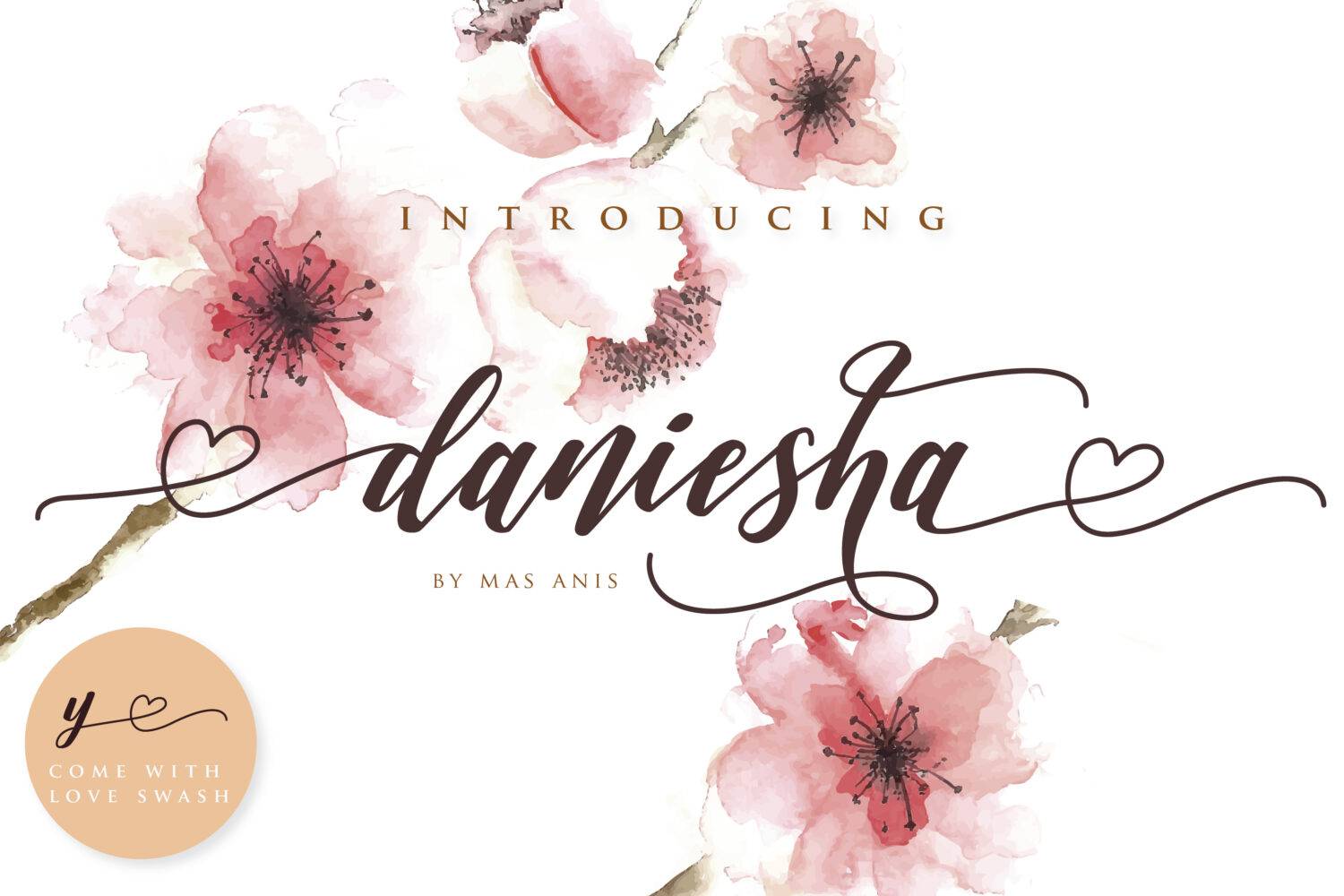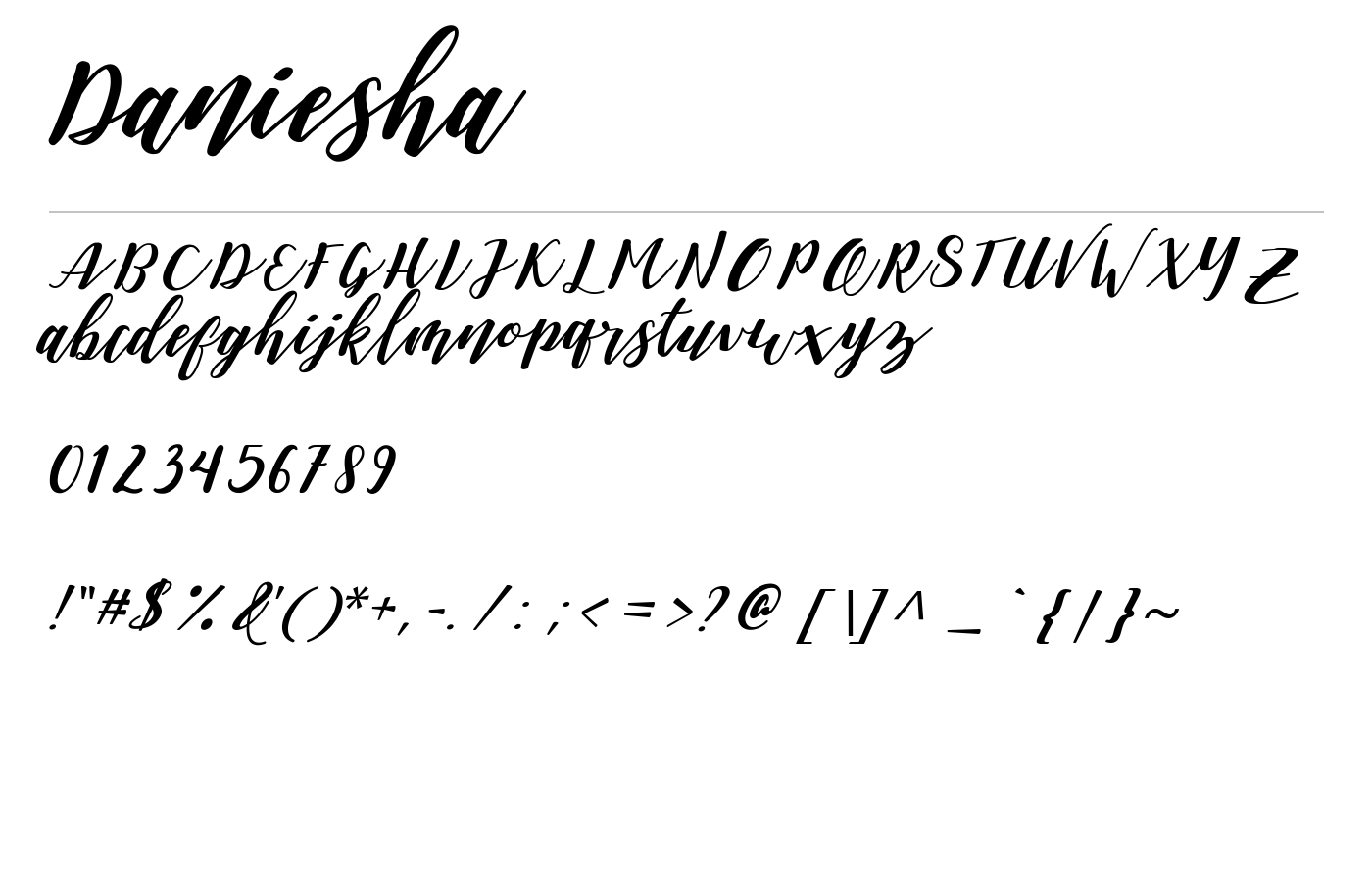
Daniesha Lovely Script is an elegant and flowing script font with smooth, connected strokes that convey a sense of warmth and charm. Its medium weight and slightly condensed letterforms, combined with a playful, handwritten style, make it perfect for branding, invitations, and decorative headlines that need a personal, inviting touch. This font works beautifully in creative and feminine designs, adding a sophisticated yet approachable feel.
Daniesha Lovely Script Font
About Daniesha Lovely Script Font
| Font family | Daniesha Lovely Script Font |